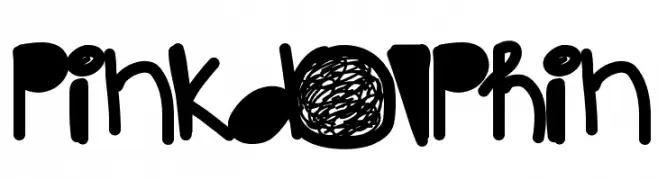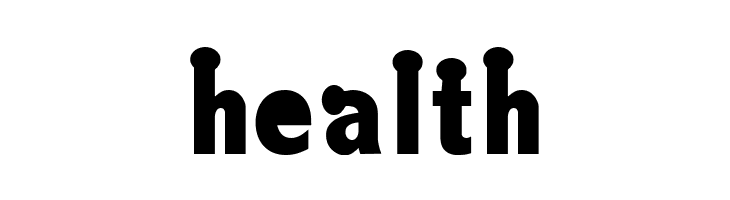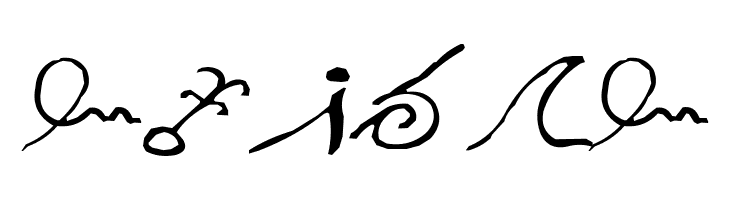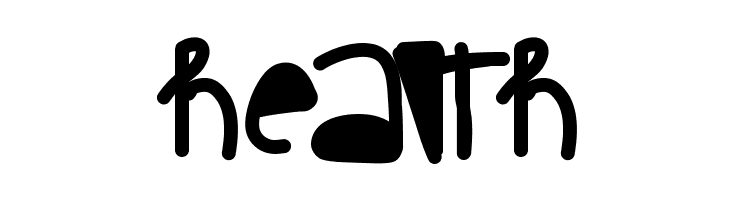
A bold, expressive handwritten font with dynamic strokes and a brush-like texture.
A bold, rounded sans-serif font with a modern and approachable style.
A bold, playful, handwritten-style font with thick, rounded strokes.
A bold, modern typeface with geometric, rounded characters.
A bold, rounded font with a strong, friendly presence.
A bold, pixelated font with a retro video game aesthetic.
A dynamic, cursive script font with a natural, handwritten style.
A playful, rounded font with a friendly and approachable style.
A bold, brush-style script font with dynamic, energetic strokes.
A bold, angular font with a dynamic and energetic style.
A modern, geometric font with clean lines and balanced proportions.
A bold, italic font with textured, brush-like strokes and a dynamic, handcrafted appearance.
A bold, brush-style font with a hand-drawn, artistic look.
A rough, brush-style font with bold, dynamic strokes.
A bold, rough brush font with a textured, hand-drawn appearance.
A bold, italic, sketch-style font with a hand-drawn, textured appearance.
A bold, sketch-like font with a hand-drawn, textured appearance.
A bold, brush-style font with a dynamic and artistic feel.
A bold, distressed font with a rugged, textured appearance.
A playful handwritten font with fluid, dynamic strokes and a casual vibe.
A bold, playful font with rounded edges and thick strokes.
A bold, geometric font with sharp angles and high contrast, reminiscent of Gothic styles.
A playful, handwritten font with curly, swirly strokes and a whimsical style.
A bold, geometric font with a modern, industrial design.
A bold, cursive handwritten font with a fluid and connected style.
A bold, hand-drawn font with a vintage sports theme.
A bold, vintage-style font with a rugged, hand-painted look.
A bold, decorative font with a stencil-like, industrial design.
A futuristic, geometric font with a digital, tech-inspired design.
A futuristic, geometric font with rounded edges and a techno-inspired aesthetic.